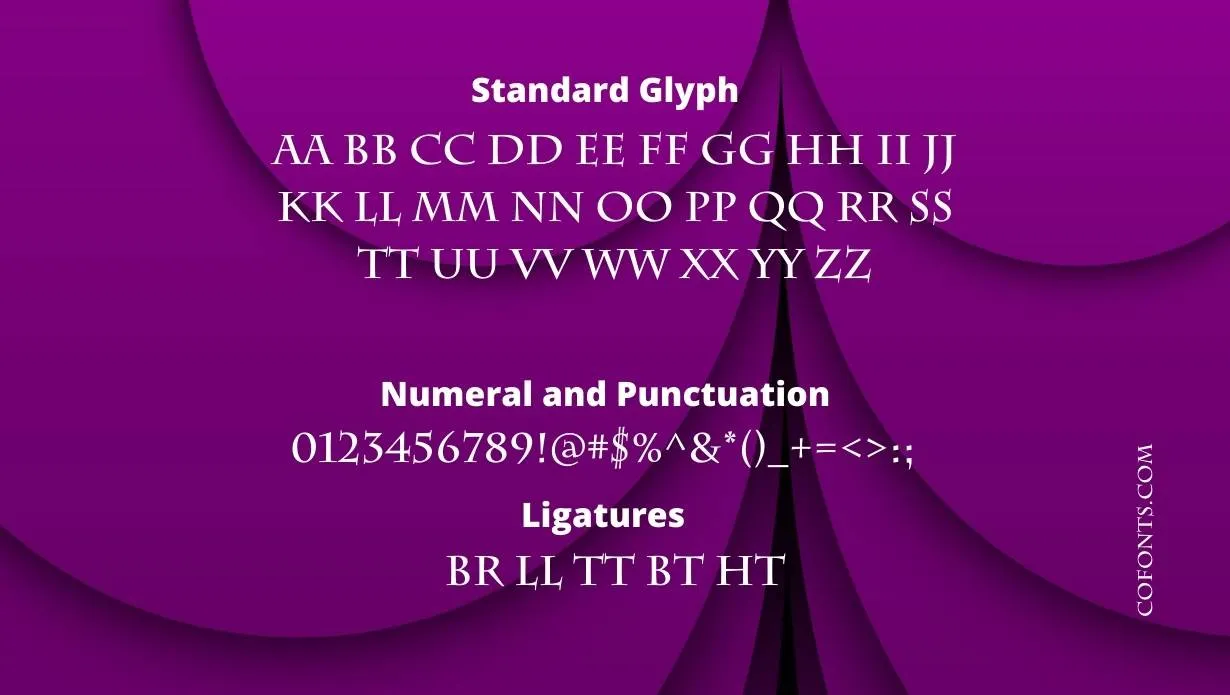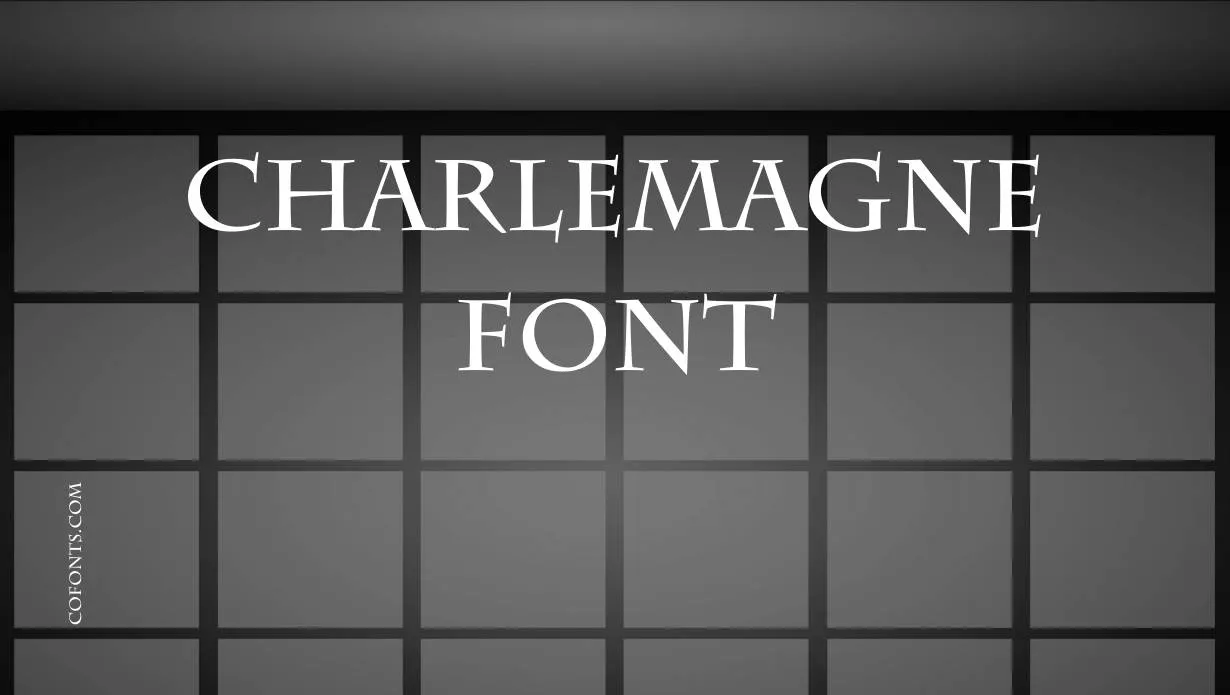
About Charlemagne Font
Charlemagne font belongs to the Serif font family and features 261 OpenType variant glyphs. It is perfect for use in packaging, advertising, and display purposes. This appealing serif style font provides support for almost all symbols and letters, making it suitable for non-English languages also.